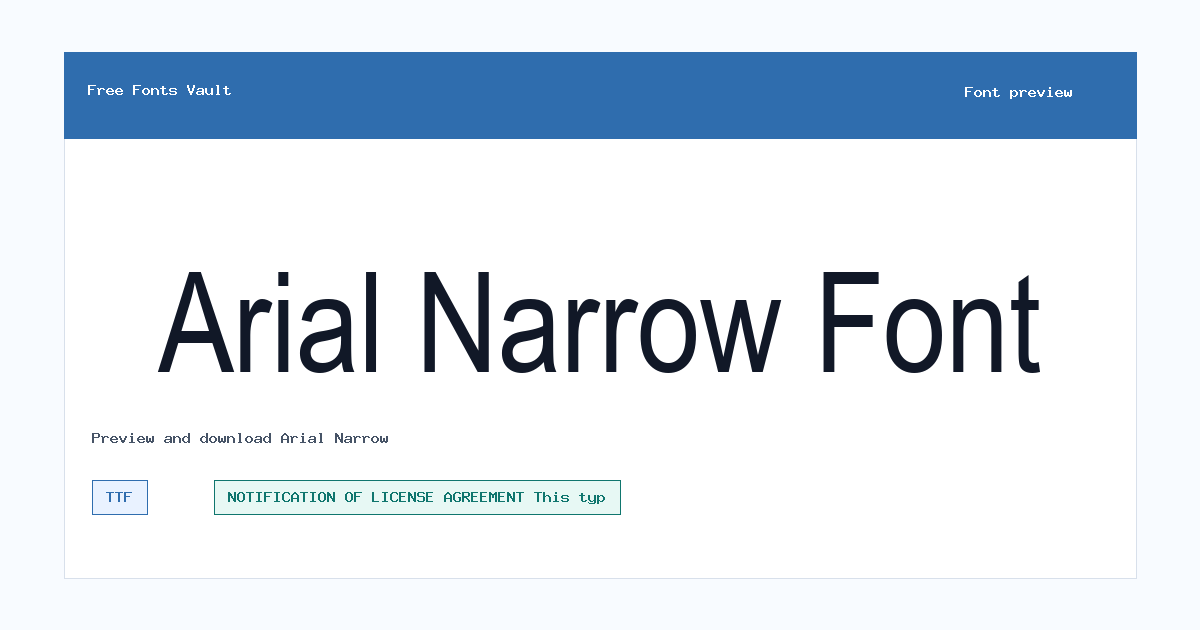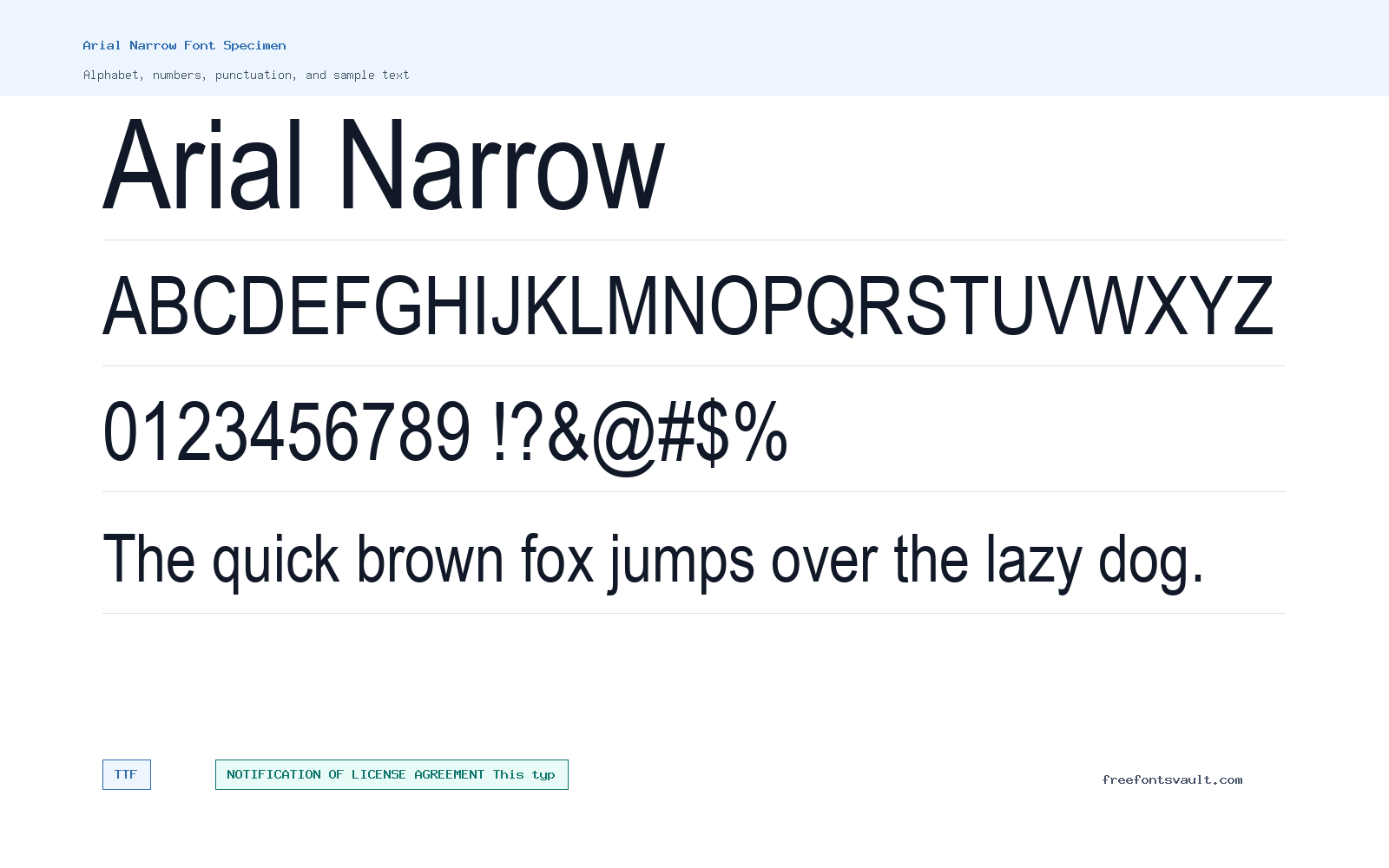
Arial Narrow
- Designer Robin Nicholas, Patricia Saunders
- Foundry Monotype Typography, Inc.
Arial Narrow font.
Arial Narrow is a condensed sans serif typeface designed for setting clean text in less horizontal space. Its slimmer letterforms make it useful when a regular-width font feels too wide for headings, labels, tables, or compact interface text.
About Arial Narrow
Arial Narrow keeps the familiar neutral style of Arial but compresses the character width, giving words a tighter and more economical look. The regular style in this download is a TrueType font with normal style and 400 weight, so it is best treated as the everyday upright cut rather than a full multi-weight family.
Use it when you need a straightforward sans serif voice without taking up too much room. It can work well for short headlines, menus, captions, spreadsheet-style layouts, posters with limited space, and comparison tables. Because narrow letters can become harder to read in dense paragraphs, test it in the preview at the exact size you plan to use, especially for small text or long body copy.
- Condensed sans serif proportions that save horizontal space
- Regular TrueType style with normal posture and 400 weight
- Clean, familiar Arial-style letter shapes for practical layouts
- Useful for short text where width is limited
- Compact headings and subheadings
- Labels, menus, and navigation text
- Tables, forms, and comparison layouts
- Posters or graphics that need narrow sans serif lettering
- Previewing text where standard Arial feels too wide
Arial Narrow is credited to Robin Nicholas and Patricia Saunders, with Monotype Typography, Inc. listed as the foundry.
What is Arial Narrow best used for?
It is best for short, space-conscious text such as headings, labels, menus, tables, captions, and layouts where a regular-width sans serif takes up too much room.